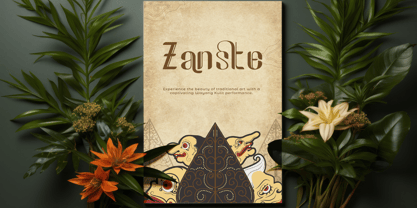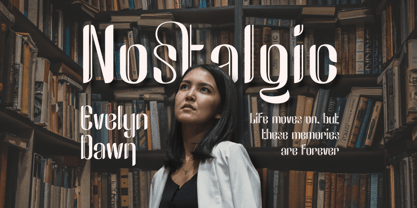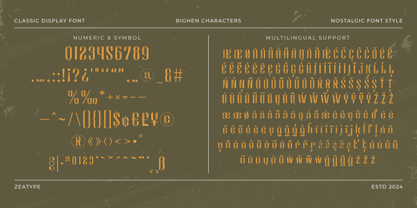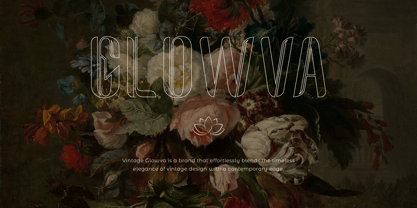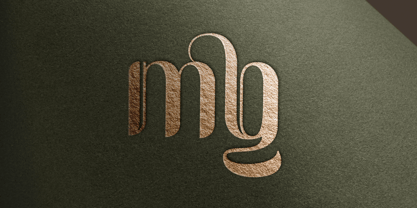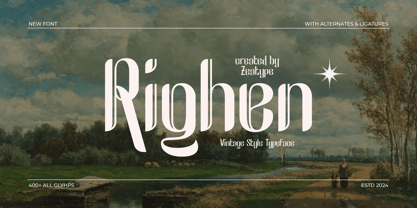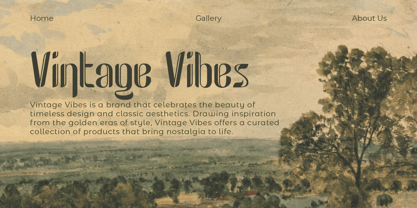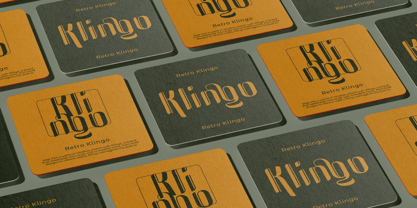
Righen
by Zeatype
The Righen Font Family was designed by Hany Fauzan and published by Zeatype. Righen contains 1 styles.
Introducing Righen, a stunning Display Vintage Font that brings the elegance and artistry of traditional Javanese culture into the modern design world. Inspired by the intricate beauty of Javanese calligraphy, Righen combines vintage charm with sophisticated, flowing letterforms that reflect the richness of Indonesia's heritage. Ideal for logos, posters, branding, and cultural projects, this font adds a unique, cultural touch that transports your audience to the heart of Java. With its ornate details and graceful curves, Righen is perfect for those looking to infuse their designs with timeless tradition and artistic flair. Make your work stand out with Righen—a font that celebrates the elegance of Javanese tradition, while offering a fresh and vintage twist.